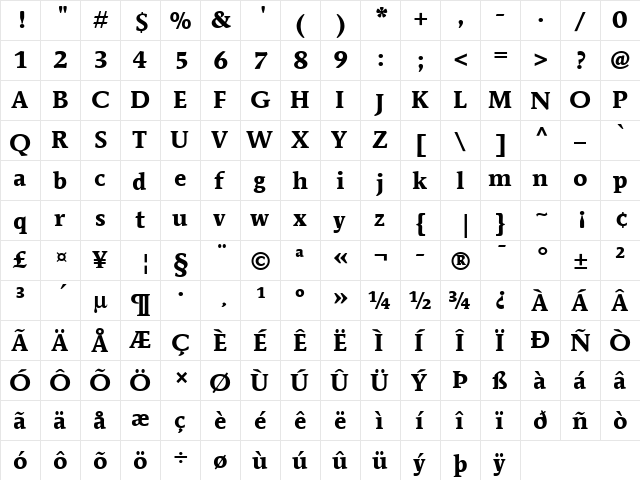
ITCMendozaRoman LT Book Bold
Design Context for ITCMendozaRoman LT Book Typeface
ITCMendozaRoman LT Book is a composed and adaptable typeface that performs quietly and consistently across a wide range of design contexts. Its bold stroke weight gives it real presence on the page.